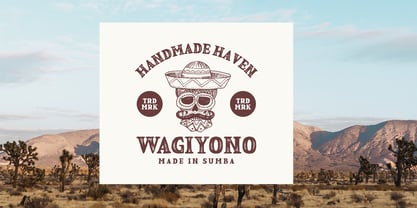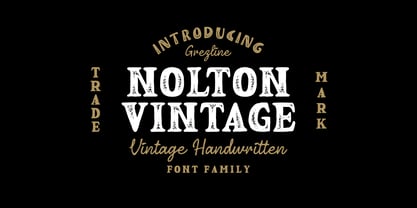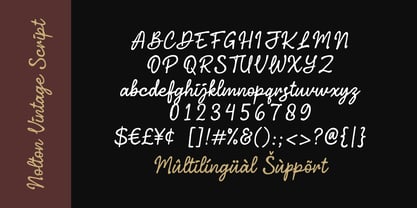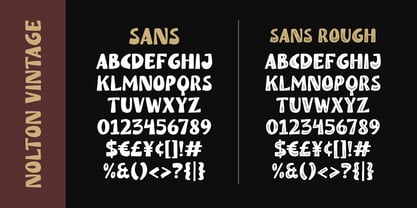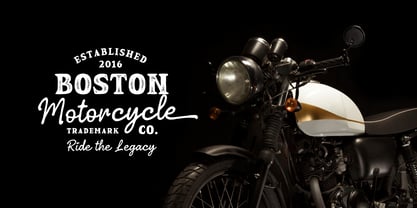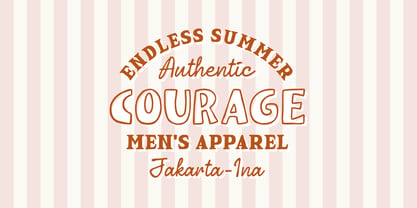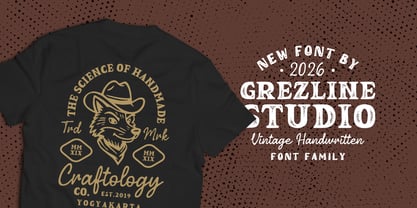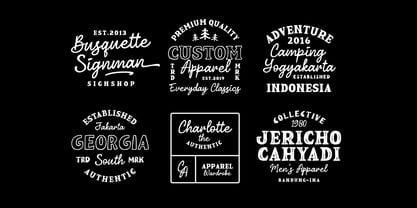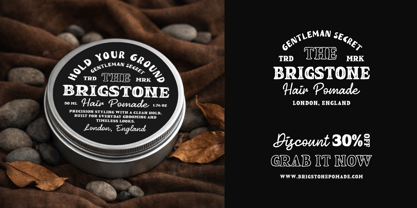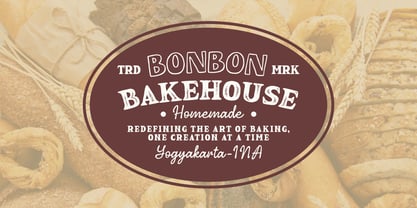
Nolton Vintage
by Grezline Studio
The Nolton Vintage Font Family was designed by Akhmad Reza Fauzi and published by Grezline Studio. Nolton Vintage contains 7 styles and family package options. More about this family
I created this font with one goal in mind: to make every design feel bold, vintage and full of personality.
This font is inspired by the timeless beauty of vintage lettering. Every word typed with it to feel more expressive, more handcrafted and more memorable. It’s not just about readability - it’s about creating a mood and giving your design a stronger identity.
Feature :
- Multilingual Language
Designers: Akhmad Reza Fauzi
Foundry: Grezline Studio